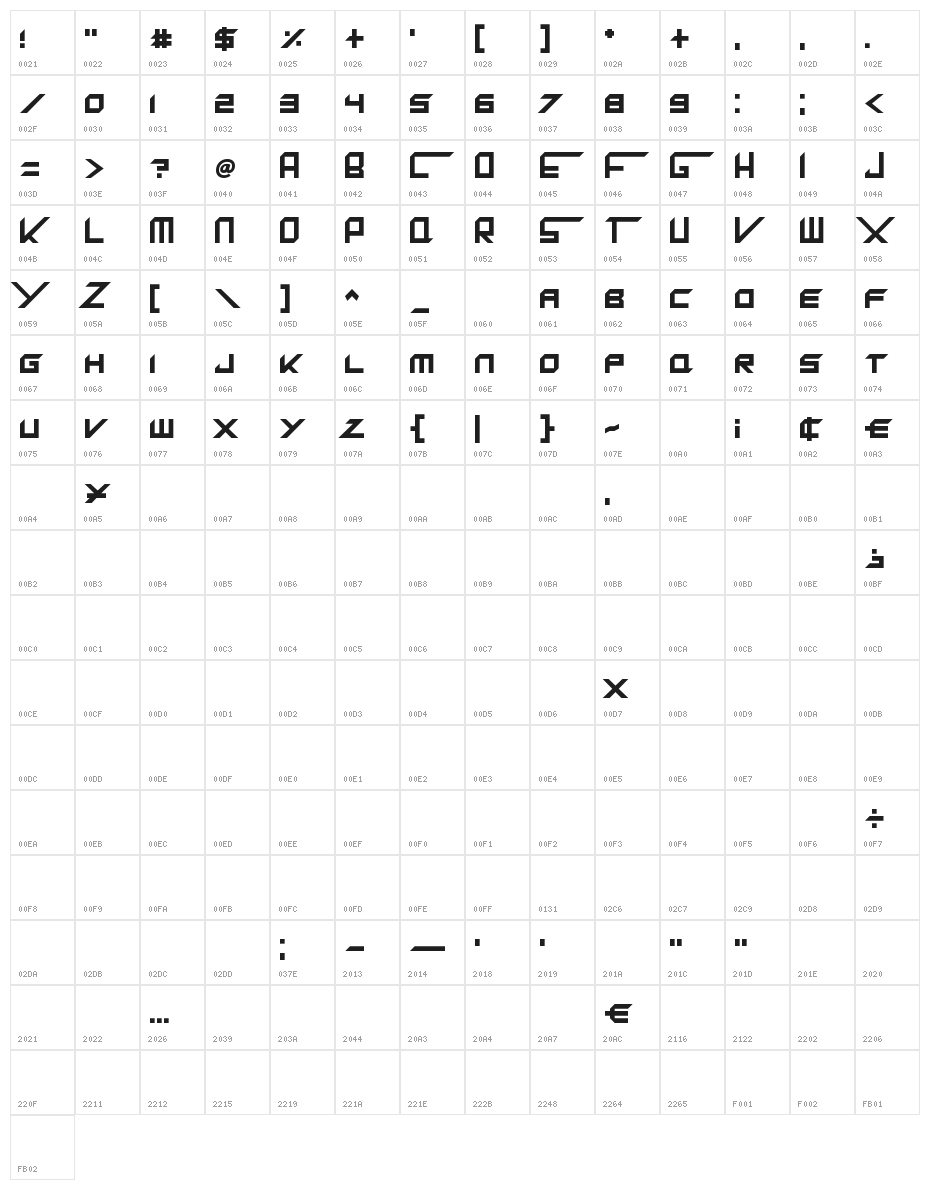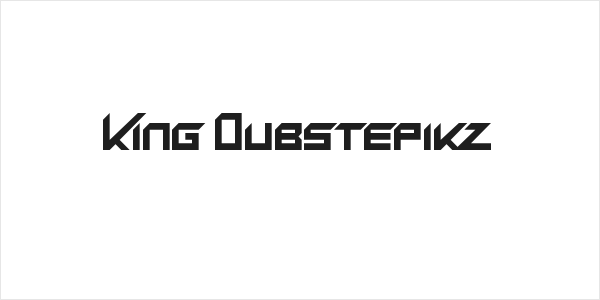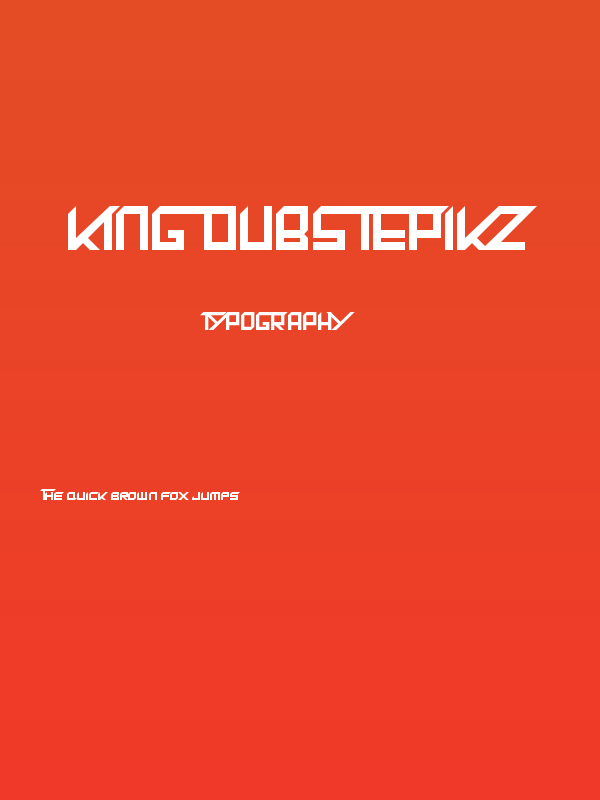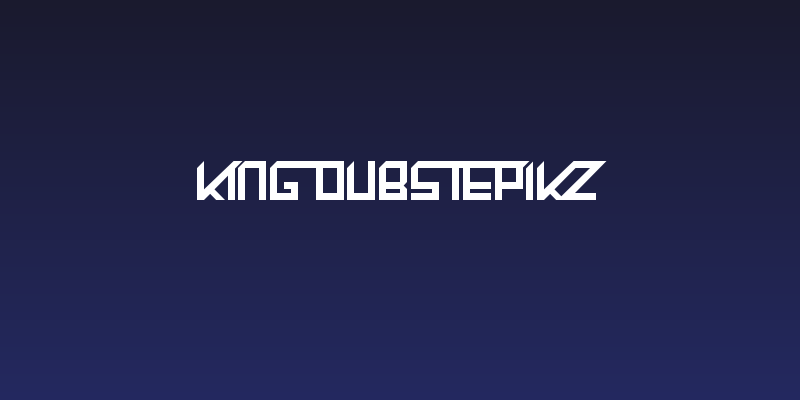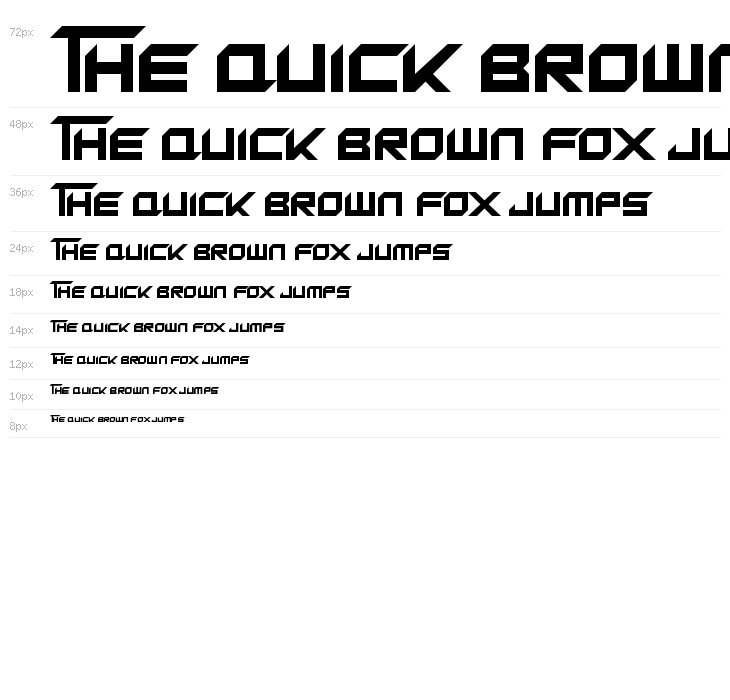
King Dubstepikz Font
King Dubstepikz Description
This font features a bold, geometric style with sharp angles and a futuristic aesthetic. The characters are constructed with thick, uniform strokes that create a sense of strength and modernity. The uppercase and lowercase letters maintain a consistent design, emphasizing angular cuts and a blocky appearance. Numbers and special characters follow the same design principles, ensuring a cohesive look across all elements. The font's design is reminiscent of digital or sci-fi themes, making it suitable for projects that require a modern and edgy feel.
| Proposed Projects | Ideal for digital media, sci-fi themed projects, video game graphics, and modern branding. |